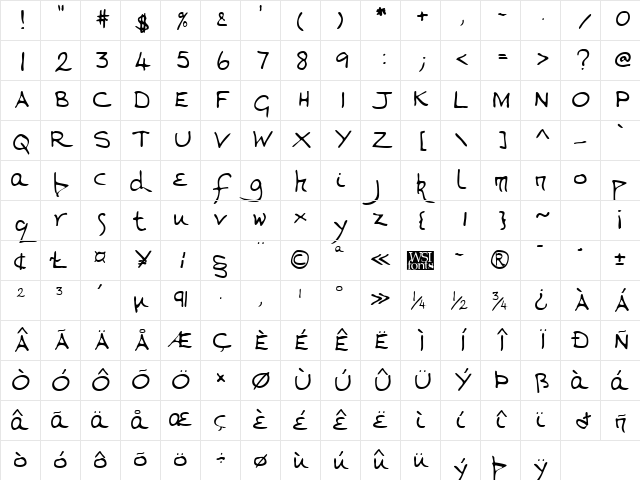
ValeriesHand Regular Free Font
ValeriesHand Regular
Design Context for ValeriesHand
ValeriesHand flows with the natural rhythm of handwritten lettering, making it ideal for designs that call for warmth and personal expression.
Font Pairing: Combine ValeriesHand with a simple geometric sans for maximum contrast - the tension between flowing curves and clean structure is a classic typographic pairing.
Pro Tip: Use ValeriesHand for short runs of text - names, titles, or taglines. Extended body copy in script faces tires the eye quickly.